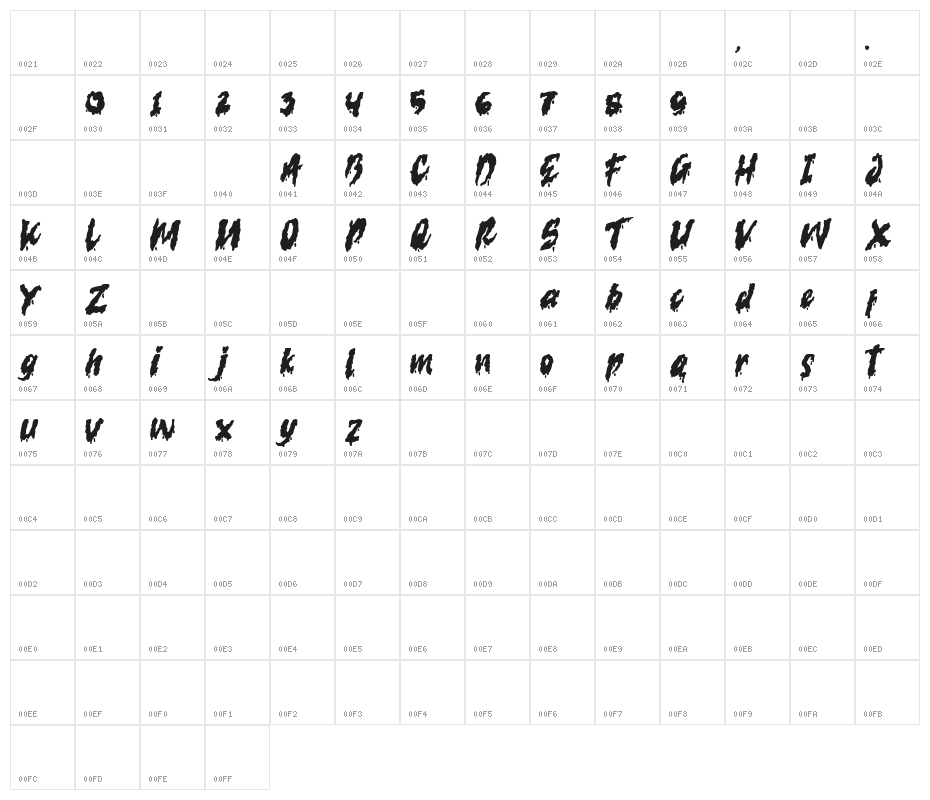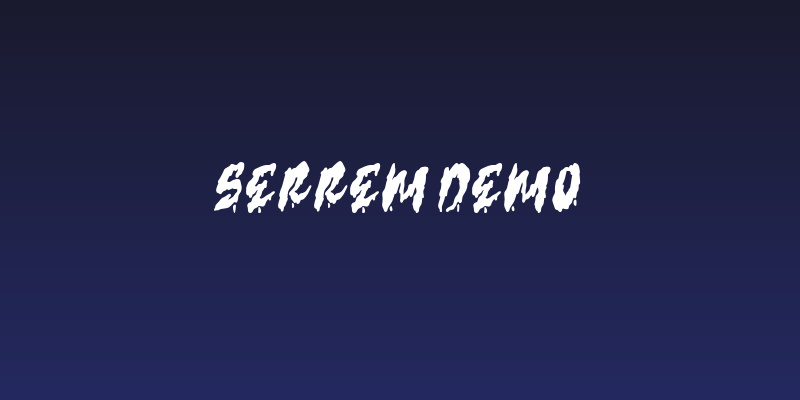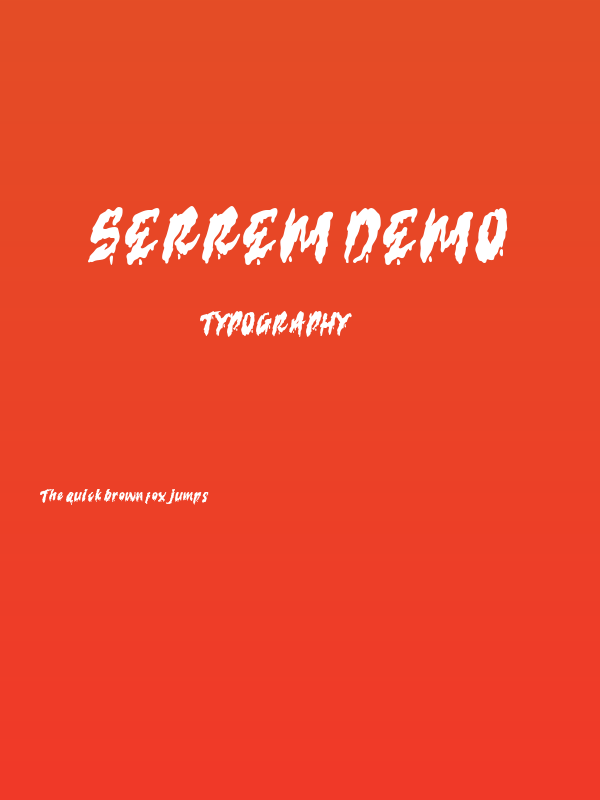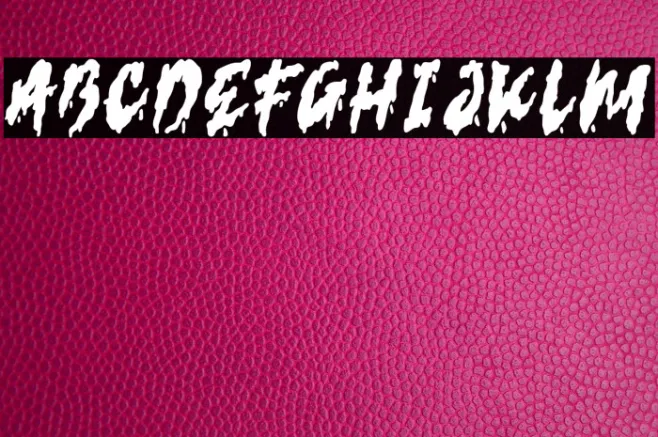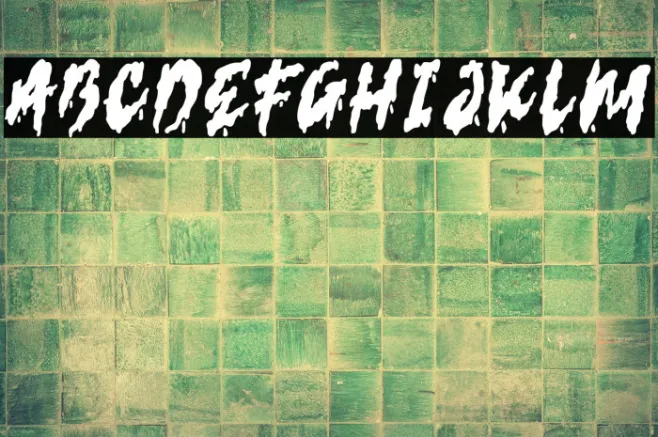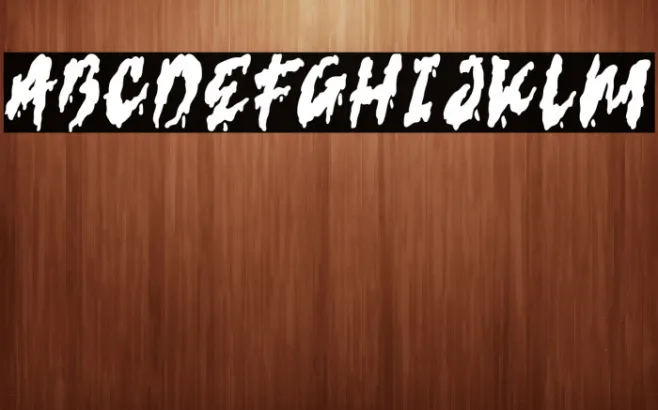
serrem demo Font
serrem demo Description
This font features a bold, dripping effect that gives it a unique, eerie appearance. Each character appears as if it is melting or oozing, creating a sense of movement and fluidity. The uppercase and lowercase letters maintain a consistent style, with exaggerated curves and irregular edges that enhance its dramatic look. The numbers and special characters follow the same design principles, ensuring uniformity across the entire set. This font is particularly eye-catching and is likely to stand out in any design due to its distinctive style.
| Proposed Projects | Ideal for Halloween-themed designs, horror movie posters, or any project requiring a spooky, dramatic effect. |